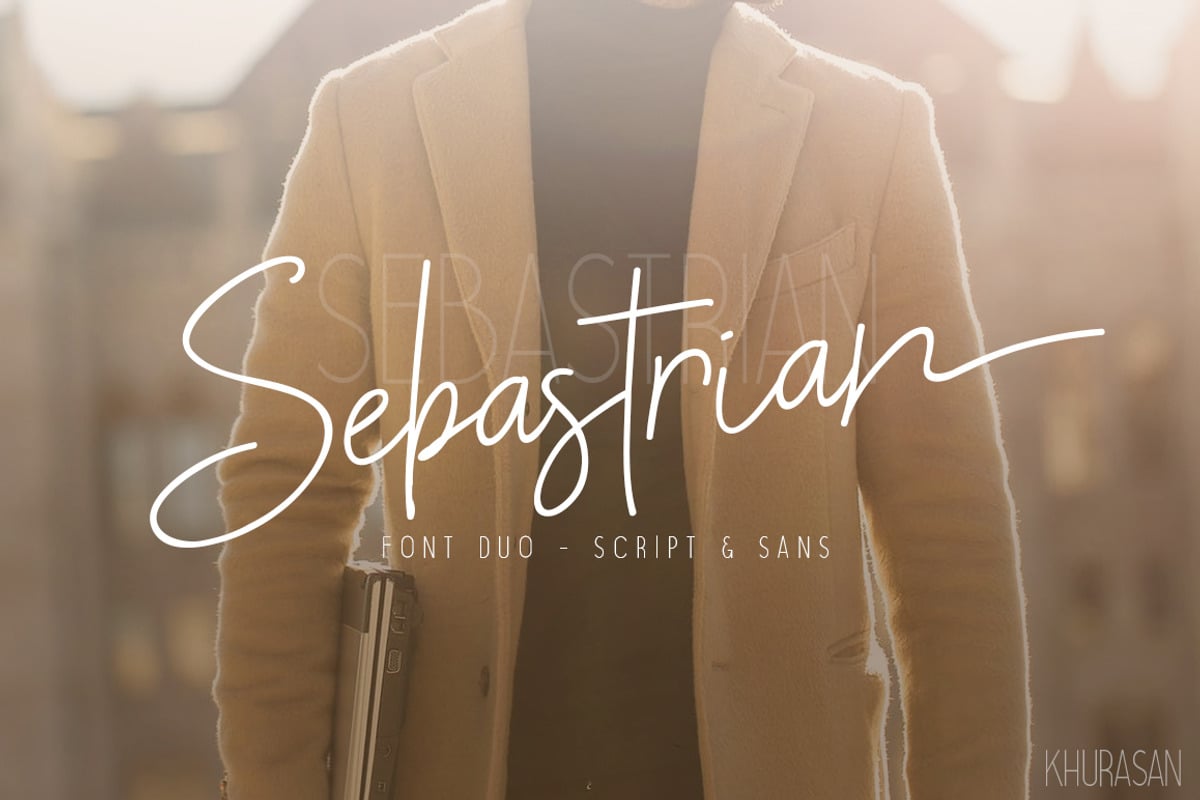
Sebastrian Font Duo
Sebastrian Font Duo combines elegant handwriting script with clean sans serif typography for versatile design projects. This sophisticated font pair delivers the perfect balance of personality and professionalism, making it ideal for business cards, posters, logos, magazines, covers, banners, t-shirts, headers, and large-scale artwork. Features include: OpenType Features Stylistic alternates Lowercase final forms Ligatures PUA Encoded characters Multilingual support: ÀÁÂÃÄÅÇEÈÉÊËIÌÍÎÏNÑØÒÓÔÕÖUÙÜ...